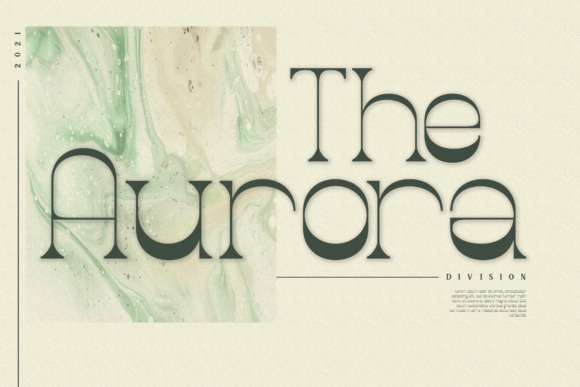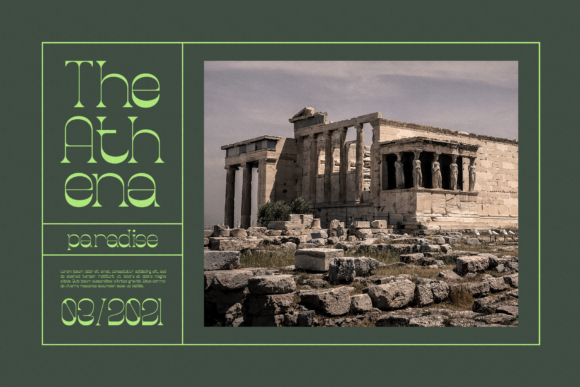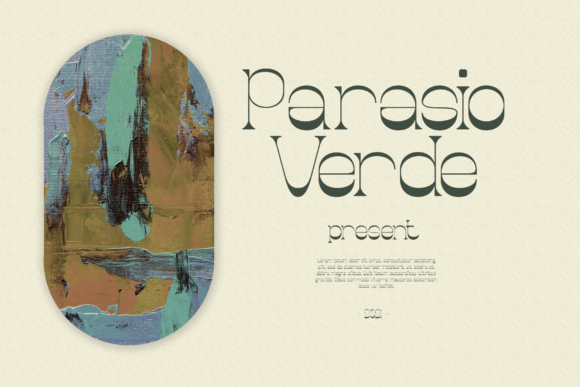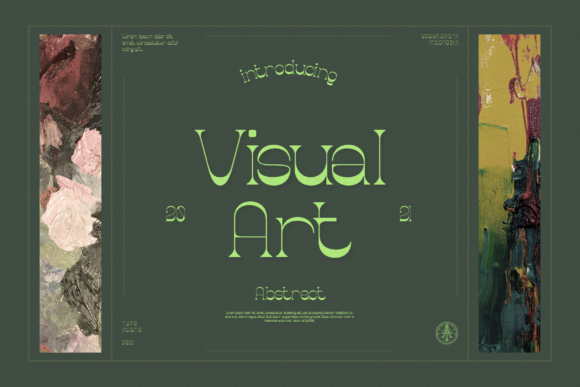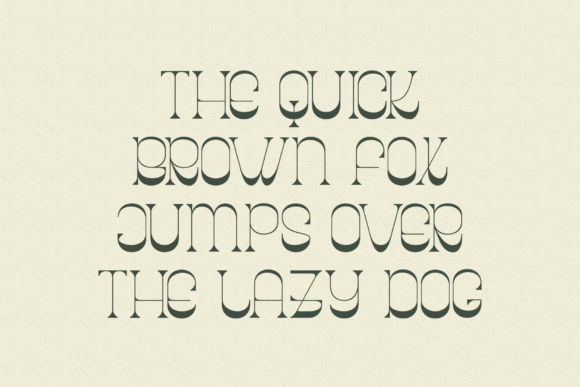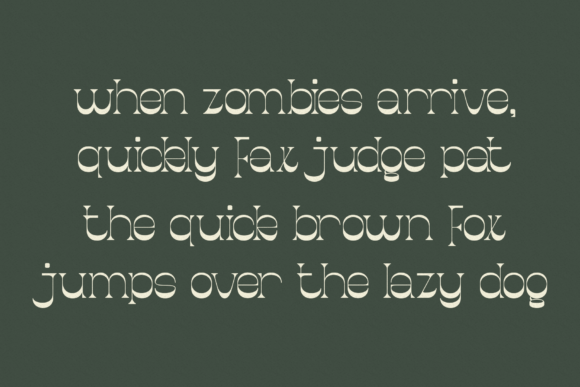
Introducing Chaero Font: The Ultimate Choice for Modern Designers
In the world of typography, fonts play a crucial role in bringing creative ideas to life. For designers and crafters, finding the perfect font can be a daunting task, but today, we’re excited to introduce you to Chaero Font – a cool, modern, and thin serif font that’s about to take your designs to the next level.
What Makes Chaero Font Special?
Chaero Font is a charming and unique typeface that’s designed to add a touch of elegance and sophistication to any design project. Its thin serif lines and modern aesthetic make it an ideal choice for designers who want to create visually stunning and cohesive designs. Whether you’re working on a logo, branding, packaging, or editorial project, Chaero Font is the perfect companion to help you bring your creative ideas to life.
Key Features of Chaero Font
- Thin Serif Lines: Chaero Font boasts delicate and refined serif lines that add a touch of sophistication to any design.
- Modern Aesthetic: The font’s modern design ensures that your projects look fresh and contemporary.
- Charming and Unique: Chaero Font’s distinctive style sets it apart from other fonts, making it perfect for designers who want to create unique and memorable designs.
- Endless Variations: With Chaero Font, you can experiment with various styles, sizes, and colors to create stunning designs that reflect your creativity.
Why Choose Chaero Font?
So, why should you choose Chaero Font for your next design project? Here are just a few reasons:
- Versatility: Chaero Font is incredibly versatile and can be used for a wide range of design projects, from logos and branding to packaging and editorials.
- Elegance: The font’s thin serif lines and modern aesthetic add a touch of elegance and sophistication to any design.
- Readability: Chaero Font is designed to be highly readable, making it perfect for body text and headlines.
- Uniqueness: With its charming and unique style, Chaero Font will help your designs stand out from the crowd.
How to Use Chaero Font in Your Designs
Using Chaero Font in your designs is easy and fun. Here are a few tips to get you started:
- Experiment with Sizes: Try using Chaero Font in different sizes to create visual hierarchy and add emphasis to your designs.
- Play with Colors: Experiment with different colors to add depth and personality to your designs.
- Mix and Match: Combine Chaero Font with other fonts to create unique and interesting typography.
- Have Fun: Don’t be afraid to try new things and experiment with different styles and variations.
In conclusion, Chaero Font is an exceptional choice for designers and crafters who want to add a touch of elegance and sophistication to their designs. With its thin serif lines, modern aesthetic, and charming uniqueness, this font is sure to inspire your creativity and help you bring your ideas to life. So, what are you waiting for? Download Chaero Font today and start exploring its endless variations!